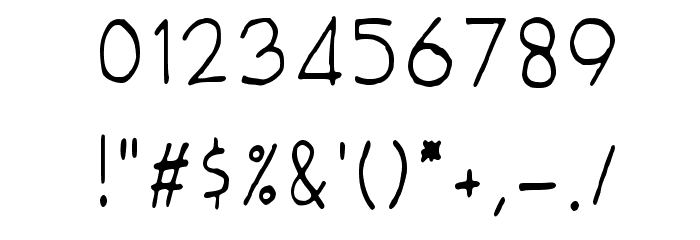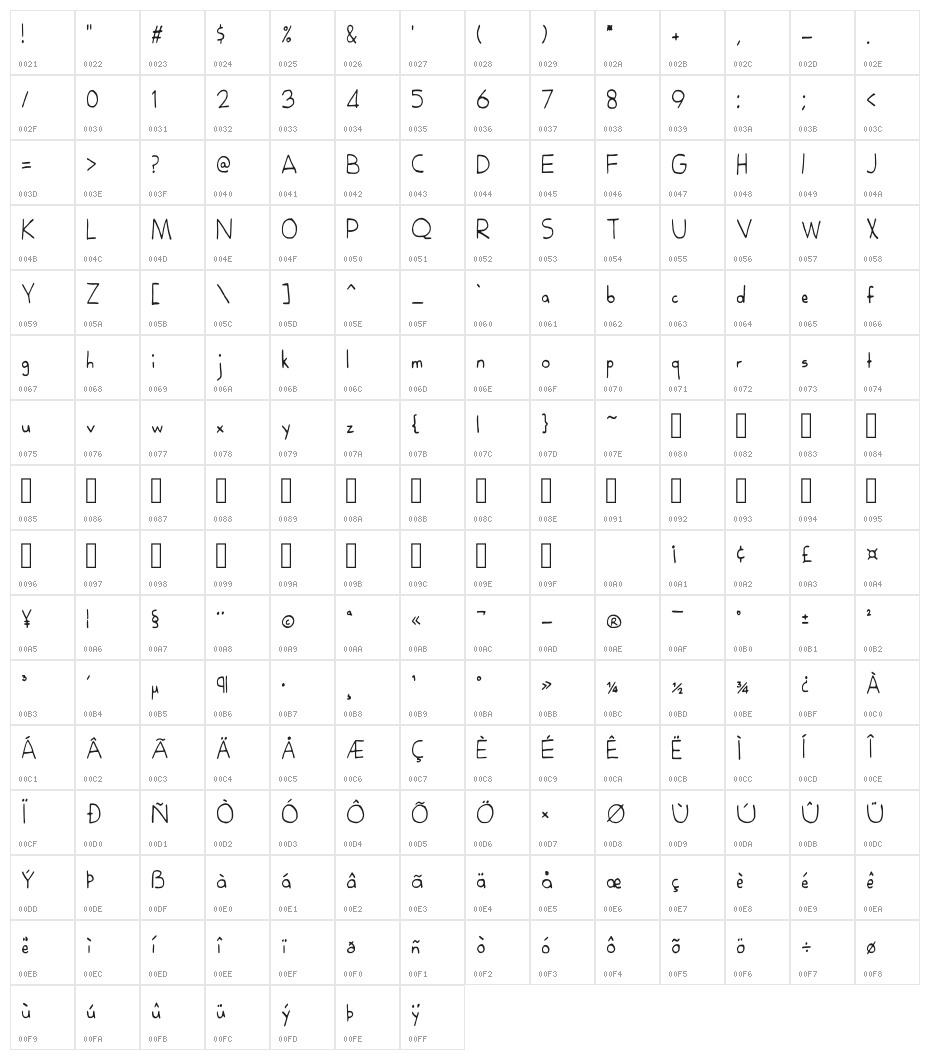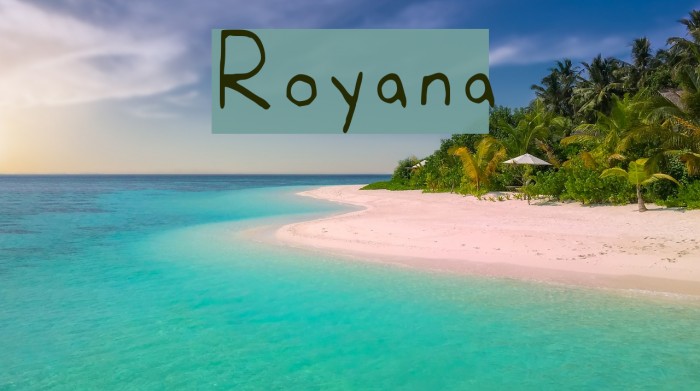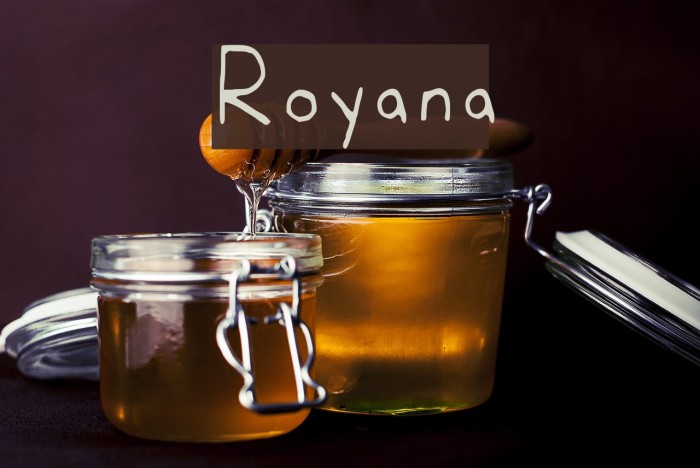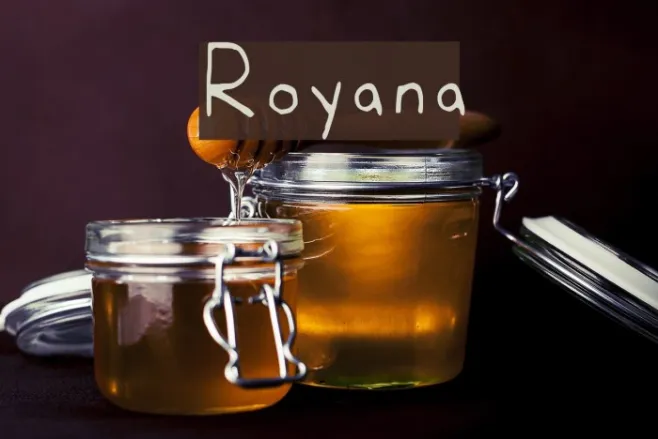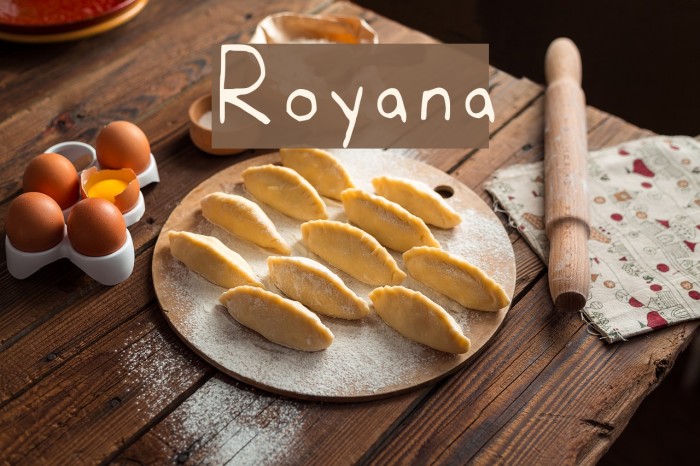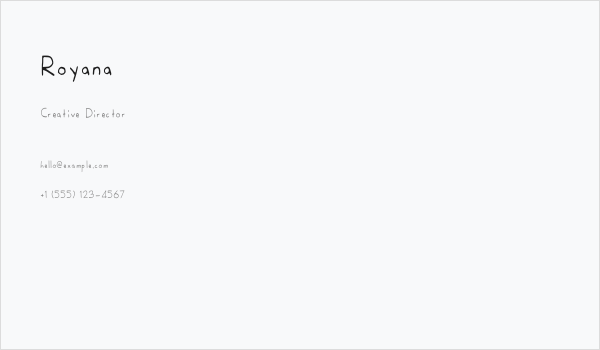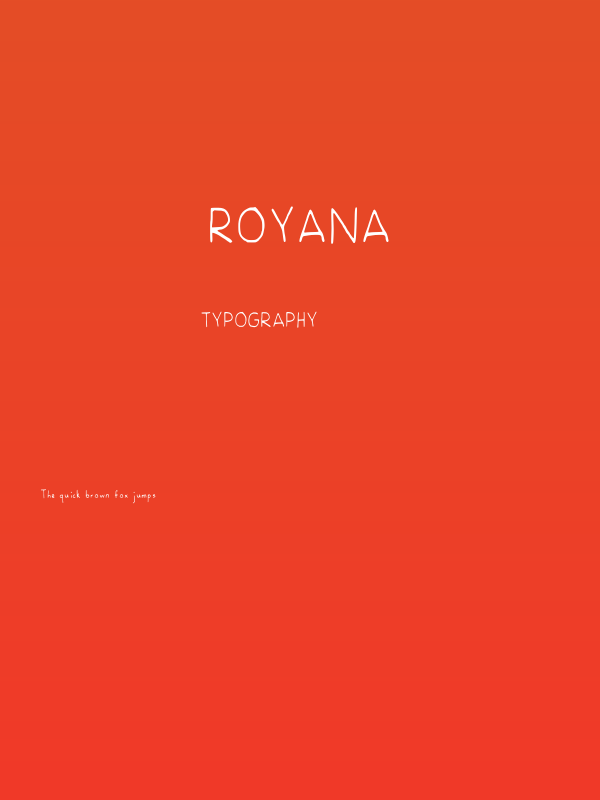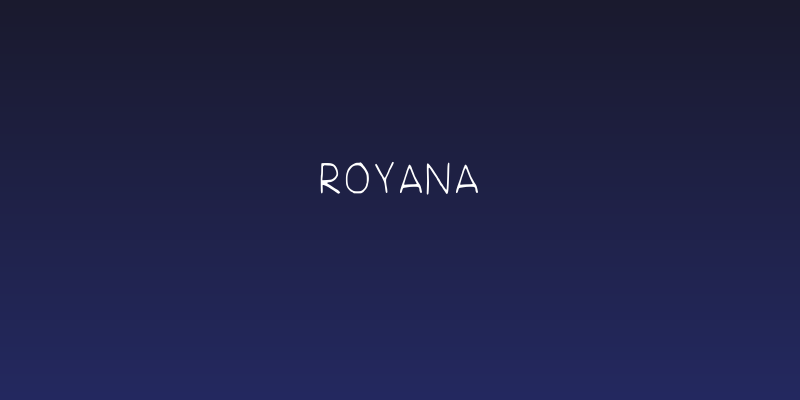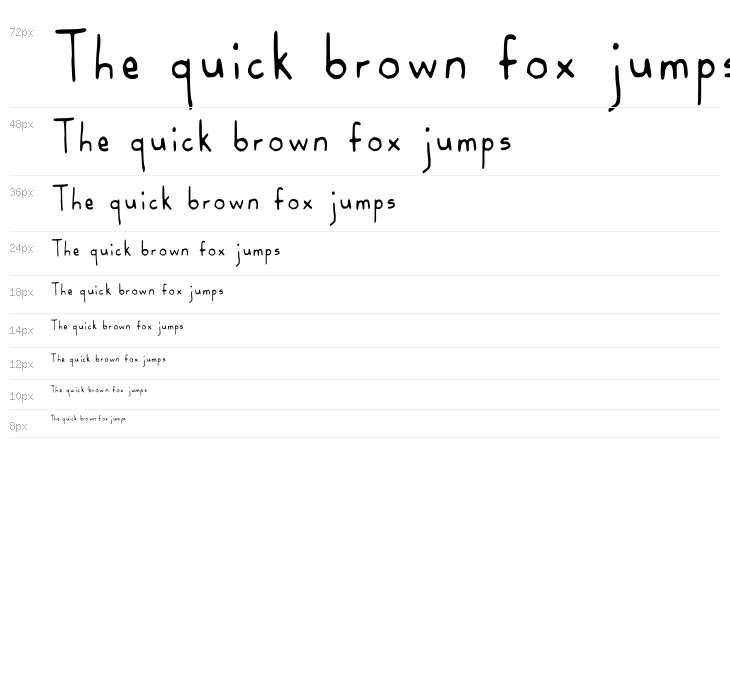
Royana Font
Royana Description
This font features a playful and informal handwritten style, characterized by its irregular and slightly whimsical letterforms. The strokes are uneven, giving it a casual and friendly appearance. The uppercase and lowercase letters maintain a consistent style, with rounded edges and varying stroke widths that add to its charm. The numerals and special characters follow the same playful aesthetic, making it suitable for projects that require a personal touch. Its unique style makes it stand out, while still being legible and versatile for various design needs.
| Proposed Projects | Ideal for greeting cards, children's books, casual branding, and creative projects that require a personal touch. |